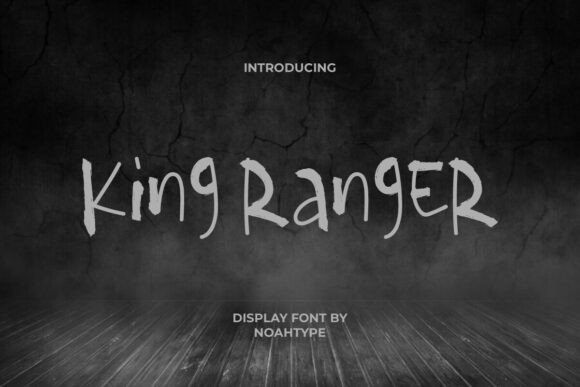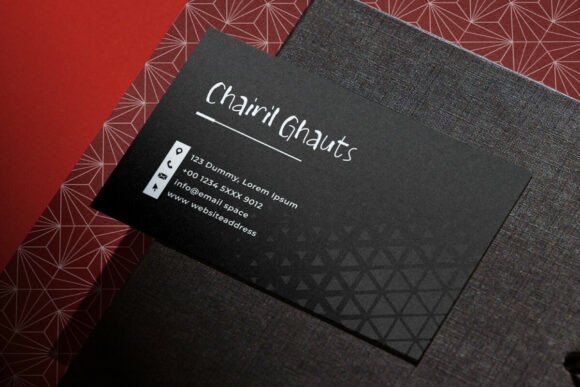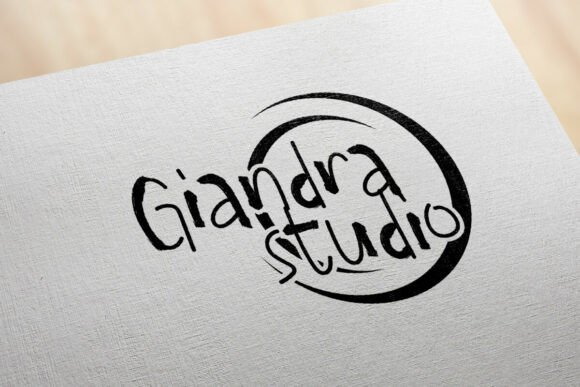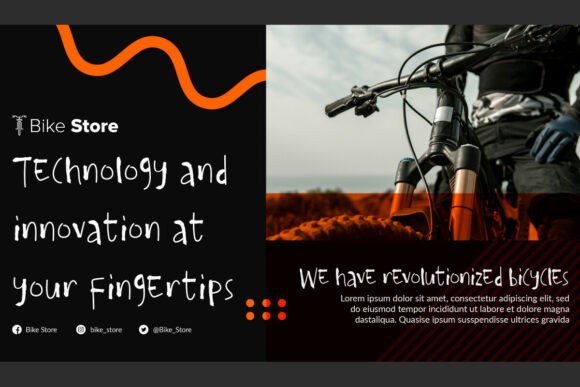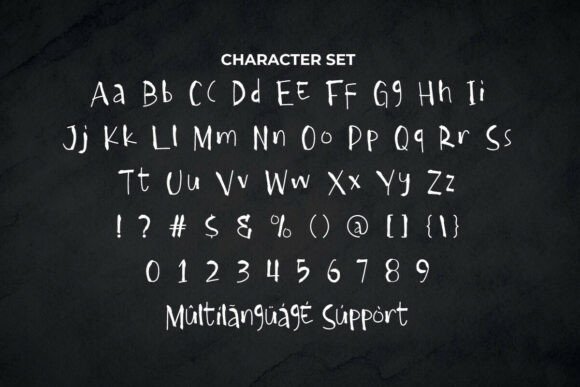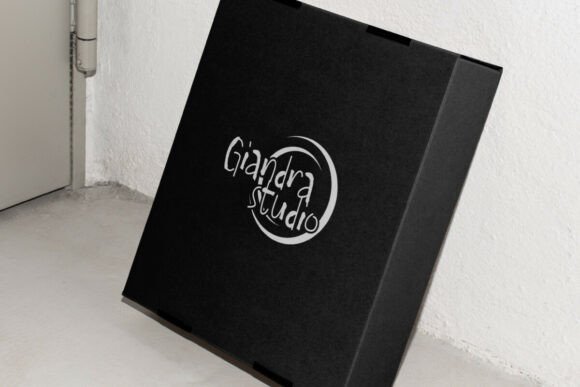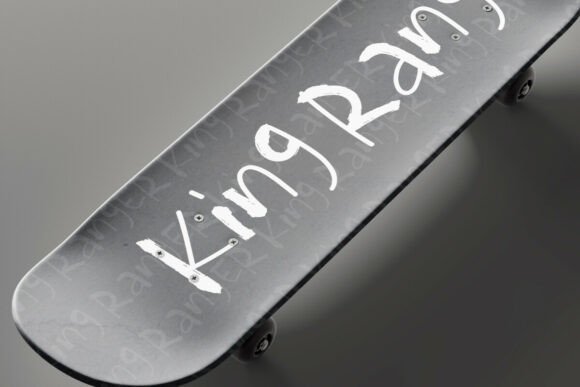
The Perfect Font for a Spine-Chilling Design
Have you ever been working on a design project and suddenly felt the urge to create something eerie and captivating? Perhaps you’re looking for a font that exudes a sense of mystery and foreboding. If so, you’re in luck because we’ve got just the thing – the King Ranger Font.
This mysterious, spooky brush display font is perfect for designers who want to add an edge to their work. With its irregularly shaped letter characters, the King Ranger Font creates an uncomfortable yet fascinating visual experience. Its versatility makes it suitable for a wide range of designs, from brand images to product packaging, and everything in between.
Whether you’re working on a project for the fashion or gaming industry, the King Ranger Font is sure to make a lasting impression. Its unique characters will give your design an impressive look, setting you apart from the crowd.
King Ranger Font Key Features
- Unique Characteristics: King Ranger Font features a bold and rugged design, with a mix of serif and sans-serif elements, making it ideal for use in outdoor and adventure-themed designs.
- Font Style: The font has a distressed and worn look, with subtle texture and imperfections that give it a unique and eye-catching appearance.
King Ranger Font Review
As a designer, I was excited to dive into the King Ranger Font, and overall, I’m impressed with its capabilities. ✨ Here are some of its strengths:
- The font’s unique blend of western and fantasy elements makes it perfect for a specific niche of designs, such as game-inspired graphics or adventure-themed websites.
- It comes in a variety of styles and weights, allowing for flexibility in its use.
- The font is highly legible, even at smaller font sizes, making it suitable for body text or smaller headers.
However, like any font, it’s not without its limitations. ⚠️ Some of these include:
- The font’s overall aesthetic may not appeal to everyone, particularly those who prefer more minimalist or modern designs.
- The font’s fantasy elements can feel a bit over-the-top or cartoonish for certain design applications.
- The font’s kerning can be a bit off in certain combinations of letters, which may require additional adjustments.
Overall, I’d say the King Ranger Font is a solid choice for designers looking for a unique, adventurous font. While it may not be for every project, it’s definitely worth considering when the right design comes along.
Common use cases for King Ranger Font include:
1. Branding and logo design
2. Advertising and marketing materials
3. Editorial and publishing content
For best results, use the font in combination with other design elements to create a cohesive and visually appealing look.